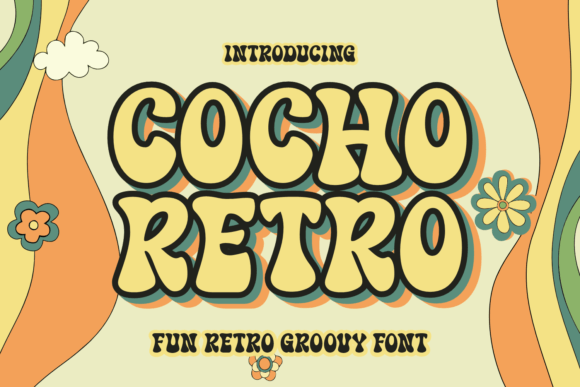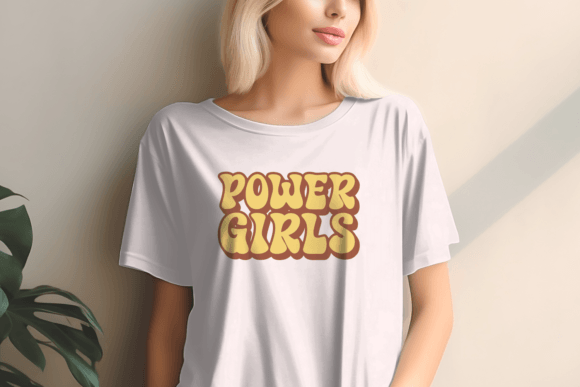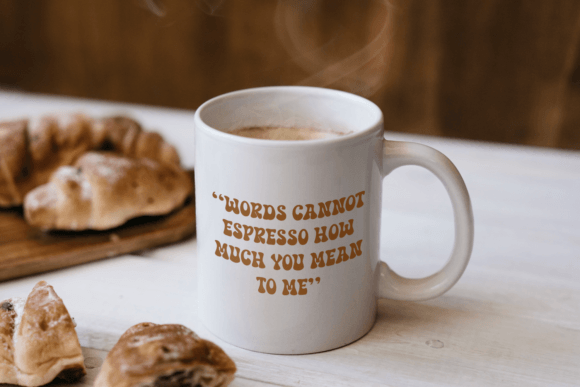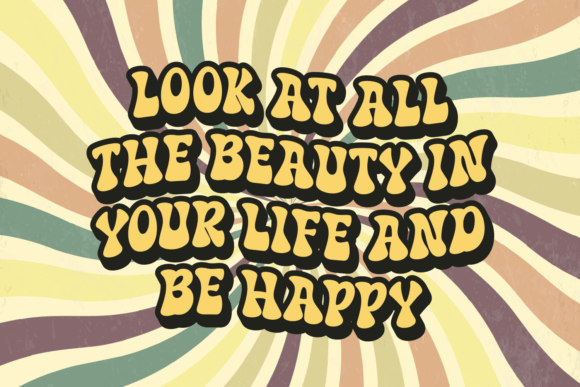
Cocho Retro Font: Groovy Display Font for Cricut & 70s Designs!
About the Cocho Retro Font
The Cocho Retro Font offers a perfect balance of form and function for your design needs. Cocho Retro is an excellent retro-style display font. Get groovy with this fun and beautiful typeface that can take your designs to the highest level! Add it to your fonts library, and use it in your next creative project.
Cocho Retro’s bold, playful personality makes it ideal for headlines, posters, and branding projects requiring a vintage feel. It works exceptionally well for eye-catching logos, short taglines, and packaging designs where impact is key. However, its condensed letterforms and relatively high x-height make it less suitable for body text or extended reading. Avoid using it in UI elements or long paragraphs.
Pairing Cocho Retro effectively depends on the desired outcome. For a retro-modern feel, consider pairing it with a clean sans-serif like Montserrat or a geometric sans-serif like Futura. To amplify its playful nature, a rounded sans-serif like Bebas Neue could be used. A more sophisticated look can be achieved with a classic serif like Garamond or a script font with a vintage flair.
The overall mood is energetic and nostalgic, lending itself to projects related to music, fashion, entertainment, or any brand aiming for a retro-inspired, fun and memorable visual identity.
Cocho Retro Font Usage Examples
Cocho Retro Font Example